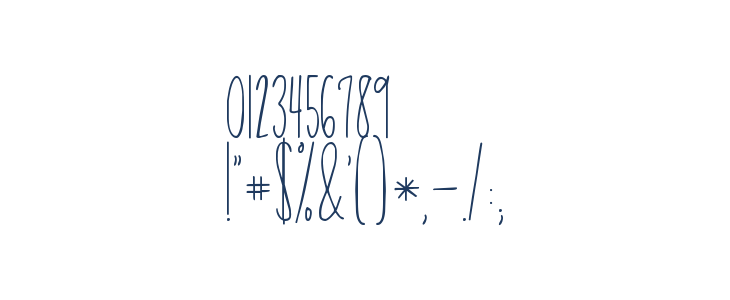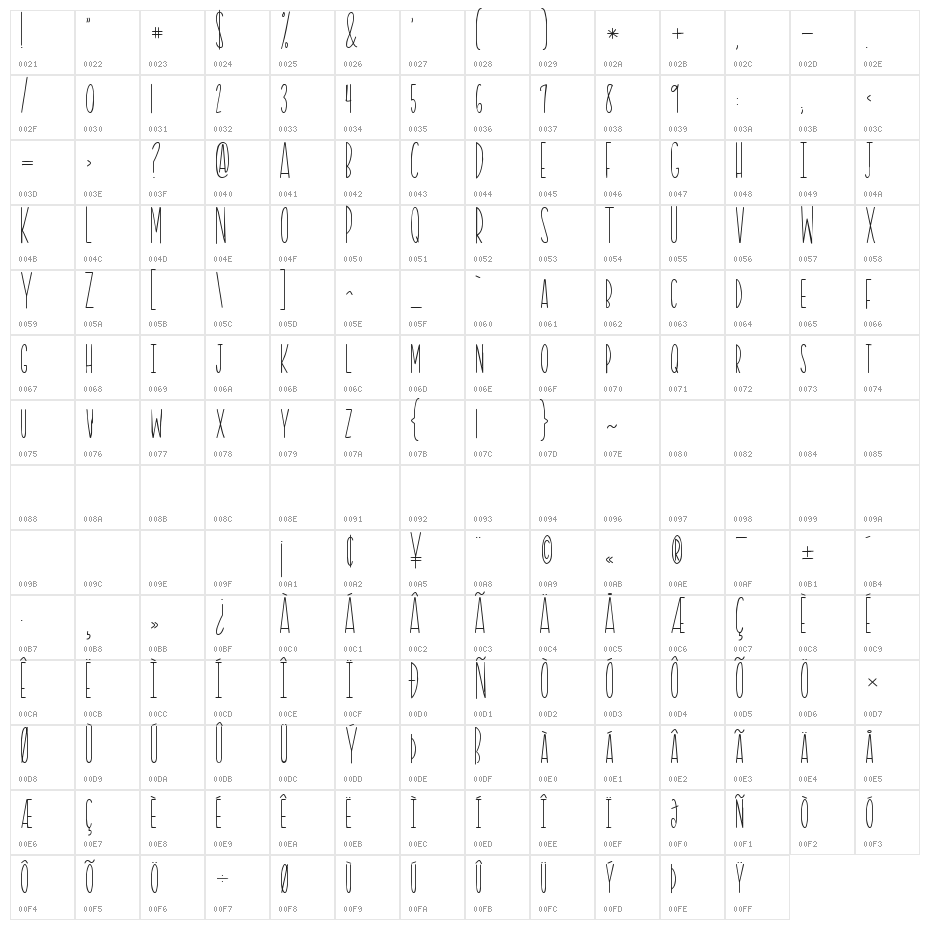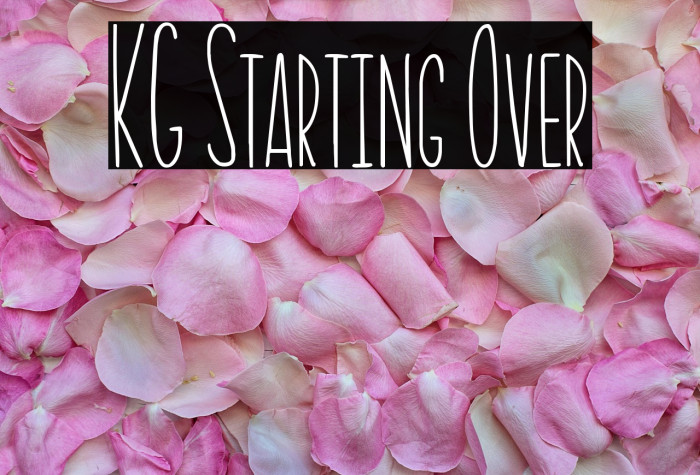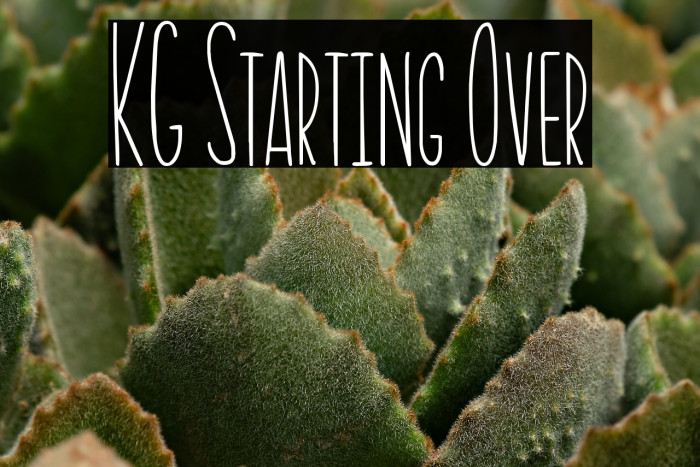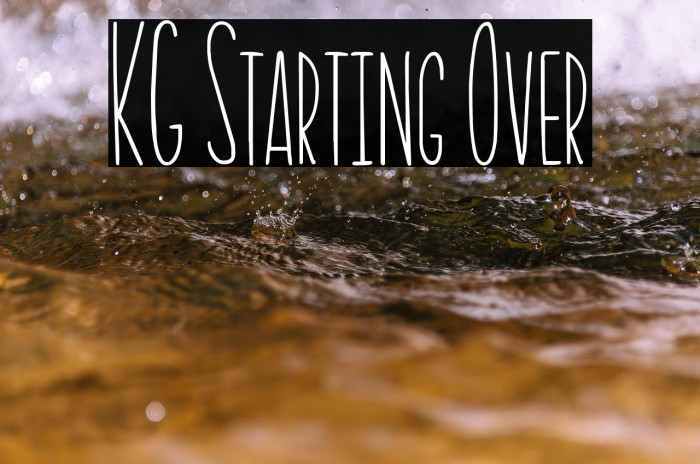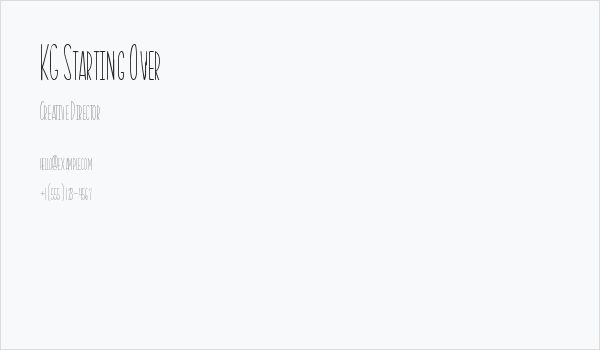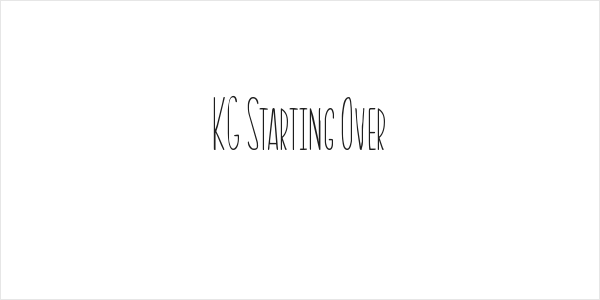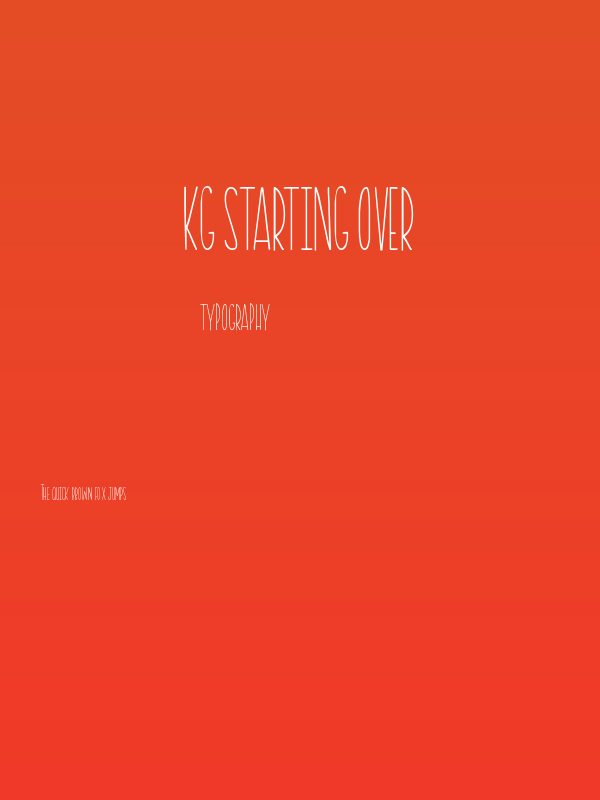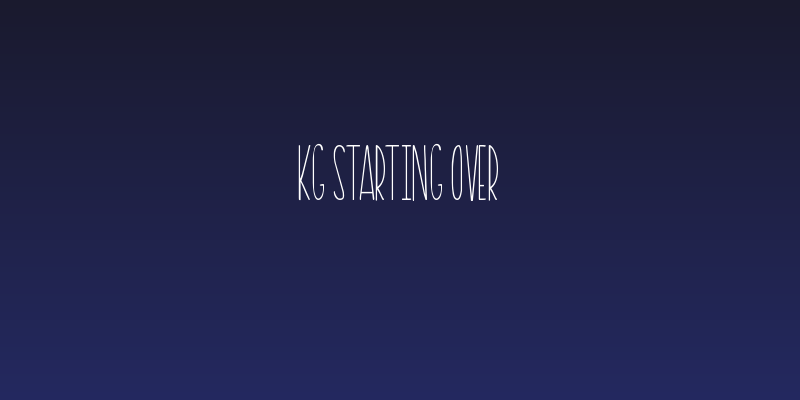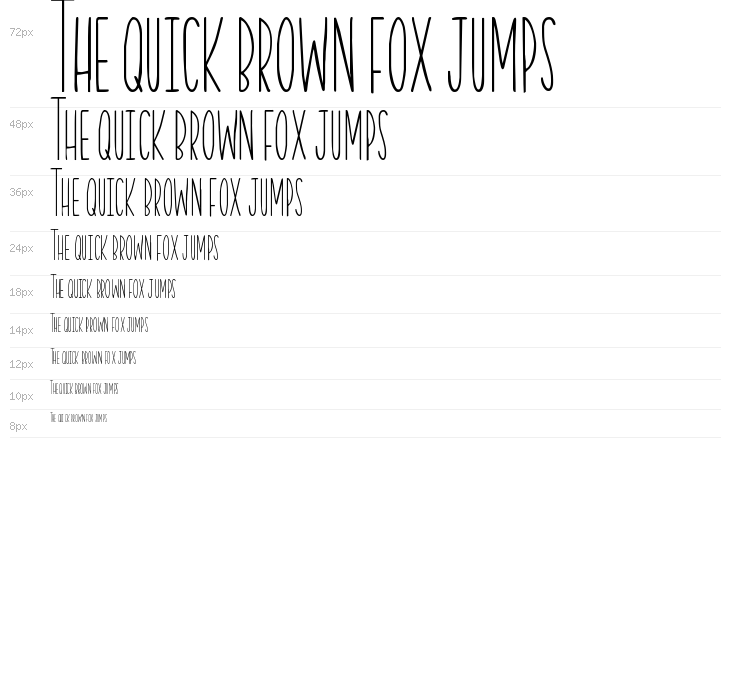
KG Starting Over Font
KG Starting Over Description
This font features tall, narrow characters with a playful and whimsical style. The letters are slightly irregular, giving it a hand-drawn appearance. The strokes are consistent in thickness, contributing to a clean and modern look. The uppercase and lowercase letters maintain a cohesive style, with the lowercase being slightly smaller and more compact. Numbers and special characters follow the same design principles, ensuring uniformity across all glyphs. This font's unique character makes it suitable for creative and informal applications.
| Proposed Projects | Ideal for children's books, greeting cards, posters, and creative branding projects. |